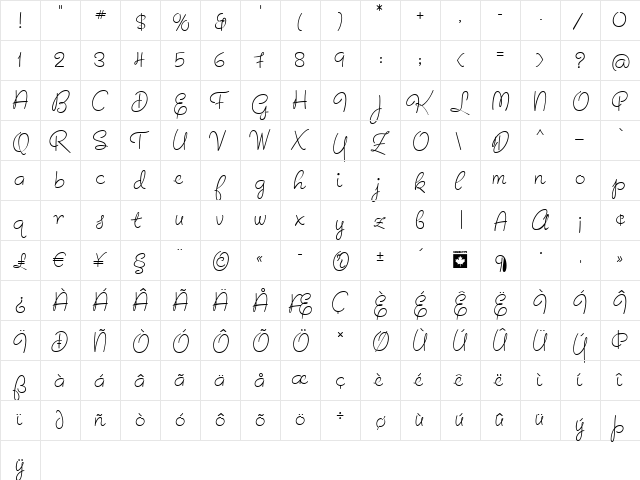
Birthday Alt Regular
Design Context for Birthday Alt Typeface
Birthday Alt is a composed and adaptable typeface that performs quietly and consistently across a wide range of design contexts.